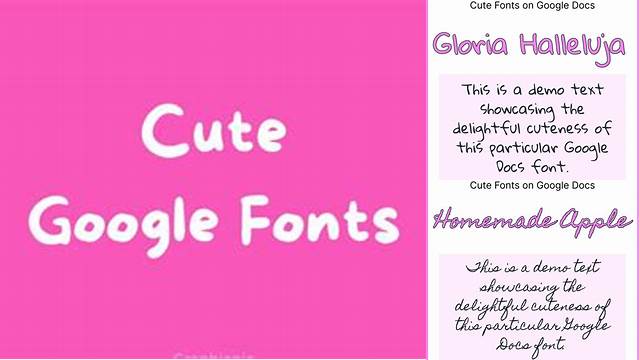
Sweetest Google Fonts: Add Cuteness To Your Designs
Hey guys! Are you looking to add a dash of cuteness to your designs? One of the easiest ways to do that is by choosing the right font, and Google Fonts has a treasure trove of options that can instantly make your projects more appealing. In this article, I’m going to walk you through some of the cutest Google Fonts that can bring a sweet and charming vibe to your websites, presentations, and graphic designs. Whether you’re working on a kid-friendly project, a whimsical blog, or just want to inject some fun into your visuals, these fonts will definitely help you achieve that adorable aesthetic.
Why Choose Cute Fonts?
Before we dive into the specific fonts, let's talk about why using cute fonts can be a game-changer. Cute fonts have a unique way of grabbing attention and evoking positive emotions. They often feature rounded edges, playful curves, and a generally soft appearance that makes them incredibly inviting. When you incorporate these fonts into your designs, you’re not just adding text; you're adding personality and charm. Think about it: a cute font can make your message feel more approachable and friendly, which is perfect for connecting with your audience on an emotional level. For websites, cute fonts can create a welcoming atmosphere, encouraging visitors to stick around and explore. In presentations, they can make your content more engaging and memorable. And for graphic designs, a cute font can be the secret ingredient that makes your artwork stand out. Ultimately, the right cute font can transform your project from ordinary to extraordinary, giving it that extra touch of sweetness and charm that everyone loves. So, let’s get started and find the perfect font for your next project!
The Power of Visual Communication
When you’re thinking about fonts, remember that visual communication is super powerful. Fonts aren’t just about readability; they’re about conveying a mood, a feeling, and a brand identity. The fonts you choose are a direct reflection of the message you want to send. A cute font, with its whimsical and playful nature, can immediately make your audience feel a sense of joy and warmth. This is particularly important in fields like children's literature, party invitations, and even casual blog designs. By using fonts that exude cuteness, you’re setting a tone that's friendly and approachable, making your content more engaging and relatable. It’s like giving your words a hug, making them more impactful and memorable. Moreover, in a world saturated with information, standing out visually is crucial. A unique and cute font can be your secret weapon in grabbing attention and ensuring your message is not only seen but also felt. So, choosing the right font is about more than just aesthetics; it’s about creating a meaningful connection with your audience.
Key Characteristics of Cute Fonts
So, what exactly makes a font “cute”? It’s not just a feeling; there are specific design elements that contribute to this aesthetic. Generally, cute fonts often have rounded terminals (the ends of the strokes), which give them a softer, friendlier appearance compared to the sharp edges of more formal fonts. The letterforms might be a bit wider or more playful, with exaggerated curves or unique shapes that catch the eye. Think of the difference between a serious, straight-laced serif font and a bouncy, rounded sans-serif—the latter is much more likely to be perceived as cute. The overall weight of the font also plays a role; lighter to medium weights often come across as gentler and more delicate than heavier, bolder fonts. Some cute fonts also incorporate whimsical details, such as decorative swashes or quirky letter connections, which add to their charm. Colors matter too! Pair a cute font with soft, pastel colors, and you’ve got a recipe for instant adorableness. Ultimately, the key is to look for fonts that evoke a sense of playfulness, warmth, and approachability. These are the fonts that will bring that desired cute factor to your designs.
Top Cute Google Fonts
Now, let’s get into the fun part – exploring some specific Google Fonts that are perfect for adding a cute touch to your projects. I’ve curated a list of fonts that range from playful and whimsical to sweet and charming, so you’re sure to find something that fits your style. Each font has its unique personality, making it suitable for different types of projects. Whether you're designing a website, creating invitations, or just looking to add some flair to your social media graphics, these fonts will help you achieve that adorable look you're going for.
1. Fredoka One
Fredoka One is a super popular choice for anything that needs a friendly and playful vibe. This font is a rounded, bold sans-serif that feels incredibly approachable. It's like the font equivalent of a warm hug! The rounded terminals and chunky letterforms give it a cheerful, almost cartoonish appearance, which makes it ideal for kids' projects, informal websites, and anything that needs a touch of lightheartedness. Think about using Fredoka One for headings on a blog, titles in a children’s book, or even logos for businesses that want to convey a sense of fun and friendliness. Because it’s so readable even at smaller sizes, Fredoka One also works well for body text, but it really shines in headlines and larger displays where its character can truly pop. This font is all about bringing a smile to your face, and it’s a surefire way to add a dash of cuteness to your designs.
2. Patrick Hand
If you’re looking for a font that feels handwritten and personal, Patrick Hand is an excellent choice. This font is designed to mimic the look of natural handwriting, giving it a warm, approachable quality that’s perfect for creating a sense of authenticity. Imagine using Patrick Hand for invitations, thank you notes, or even to add a personal touch to your website’s testimonials section. Its slightly irregular letterforms and casual strokes make it feel like a friend scribbled a note just for you. This font is particularly effective when you want to create a sense of informality and connection. It’s not as polished as a traditional typeface, and that’s precisely its charm. Patrick Hand is perfect for projects where you want to evoke a feeling of genuineness and warmth, making your message feel more intimate and relatable.
3. Amatic SC
Amatic SC is a condensed sans-serif font that brings a unique charm to any design. This font is characterized by its tall, narrow letters and slightly whimsical appearance, making it perfect for headings and titles. While it's not ideal for long blocks of text, Amatic SC shines when used to make a statement. Its hand-drawn feel gives it a friendly, approachable vibe, making it a great choice for posters, banners, and website headers. Imagine using Amatic SC for the title of a children's book, a quirky cafe menu, or even a fun event invitation. The font's condensed form allows you to fit more text into a smaller space, which is especially useful for designs with limited real estate. Its unique character ensures that your message stands out, while its playful nature adds a touch of cuteness that’s hard to resist. Amatic SC is a fantastic option when you want to infuse your designs with personality and style.
4. Baloo Bhai 2
Baloo Bhai 2 is a lively and energetic font that exudes a playful spirit. This font is part of the Baloo family, which is known for its rounded, friendly letterforms and cheerful demeanor. Baloo Bhai 2, in particular, has a delightful bounce to its characters, making it perfect for projects that need a boost of fun. Think about using it for children’s books, party invitations, or even a website for a toy store. Its round, soft shapes make it incredibly approachable, and its slight irregularities give it a hand-drawn feel. This font is all about creating a positive and upbeat vibe, making it an excellent choice for anything that needs to feel lighthearted and joyful. Baloo Bhai 2 is a surefire way to add a dose of cuteness to your designs, ensuring that your message is delivered with enthusiasm and charm.
5. Cute Font Name (Example: Luckiest Guy)
Let’s talk about another fantastic cute font option—for example, something like "Luckiest Guy." This font has a bold, hand-drawn feel that's bursting with personality. Imagine those comic book-style letters, big and chunky, perfect for grabbing attention. "Luckiest Guy" is the kind of font you'd use for a fun event poster, a playful logo, or even headings on a blog that doesn't take itself too seriously. Its informal, slightly retro vibe gives it a lot of character, and it’s sure to bring a smile to anyone’s face. The uneven lines and slightly exaggerated shapes make it feel like it was drawn by hand, which adds to its charm. It's a great choice for projects where you want to convey a sense of fun and excitement. Think of it as the font equivalent of a high-five—energetic, playful, and full of life! If you’re looking to add a dose of cuteness and whimsy to your designs, a font like "Luckiest Guy" is definitely a winner.
So there you have it, guys! A whole bunch of cute Google Fonts to jazz up your designs. From the rounded charm of Fredoka One to the handwritten warmth of Patrick Hand, there’s a font for every project that needs a dash of cuteness. Remember, the key is to use these fonts strategically – pair them with simpler fonts, use them sparingly, and always consider the context of your design. With the right font, you can transform your projects from ordinary to adorable, making them more engaging and memorable. So go ahead, experiment with these fonts and let your creativity shine. Happy designing!